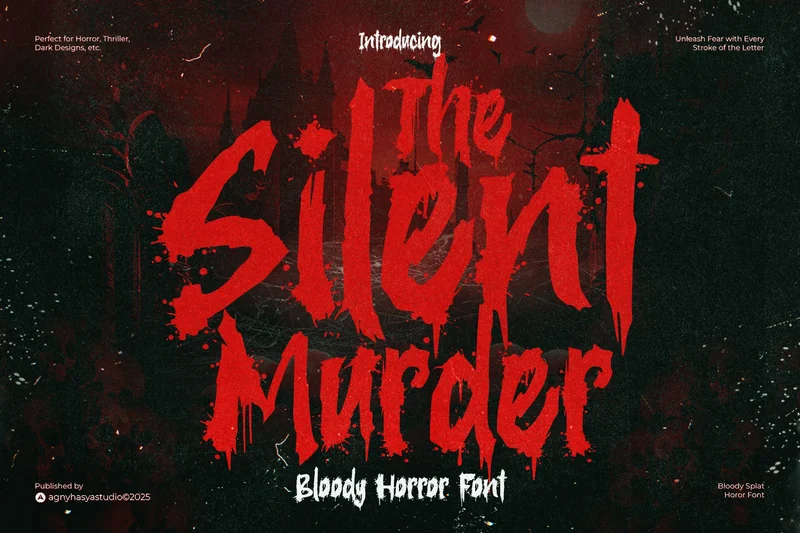
The Silent Murder
The Silent Murder is a horror font splattered with bloody strokes and chilling detail. Each letter drips like fresh crimson, echoing the silent terror of a midnight crime. Perfect for horror posters, thriller titles, slasher branding, and Halloween visuals craving a sinister edge. This font oozes dread, transforming ordinary text into a massacre of fear.
Bleed ink. Spread fear. Create silence.